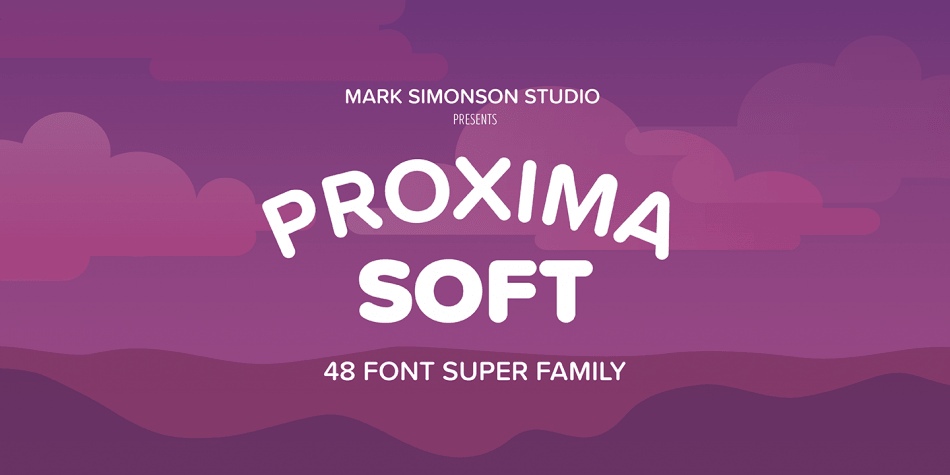
Proxima Soft Font
Proxima Soft Font is perfect for various design applications including friendly brand identities, healthcare communications, children's educational materials, approachable tech company branding, wellness center signage, family service providers, gentle product packaging, accessible website interfaces, community organization materials, and human-centered design projects. This welcoming typeface excels in projects requiring approachable professionalism and warm accessibility that builds trust while maintaining contemporary sophistication.
What makes Proxima Soft Font so exciting is its masterful balance between professional functionality and human warmth through carefully softened letterforms that feel both reliable and approachable. The font features gently rounded corners that reduce visual tension, optimized spacing that enhances readability, and contemporary proportions that feel modern yet timeless. Its distinctive friendly character and accessible appeal make it ideal for organizations seeking to communicate competence and trustworthiness while maintaining warm, human connection with diverse audiences.
The Proxima Soft Font family includes comprehensive weight options from thin to black, along with matching italic styles that provide complete typographic flexibility for accessible communication systems. Each weight maintains the font's signature approachable character while offering clear hierarchy options for complex informational layouts. The family also features extended character sets, accessibility-optimized spacing, and carefully designed numerals that ensure optimal performance across all demographic groups and reading abilities.
Whether you're creating healthcare brands, educational materials, or community-focused communications, Proxima Soft Font Free Download delivers the typographic accessibility that inclusive organizations require. This typeface transforms standard communications into welcoming experiences that reflect genuine care for user experience and human-centered design principles. The font's universal appeal makes it particularly effective for public services, healthcare providers, and organizations serving diverse communities who prioritize clear, friendly communication.
Proxima Soft Font stands out through its sophisticated approach to accessibility design that achieves exceptional readability without sacrificing contemporary style or professional credibility. Its carefully engineered softness and optimized proportions ensure optimal performance for users with varying reading abilities, while its contemporary character maintains professional authority. From comprehensive brand systems to detailed instructional materials, this font provides designers with tools to create communications that celebrate inclusive design and demonstrate sophisticated understanding of human-centered typography through warm, accessible letterforms.